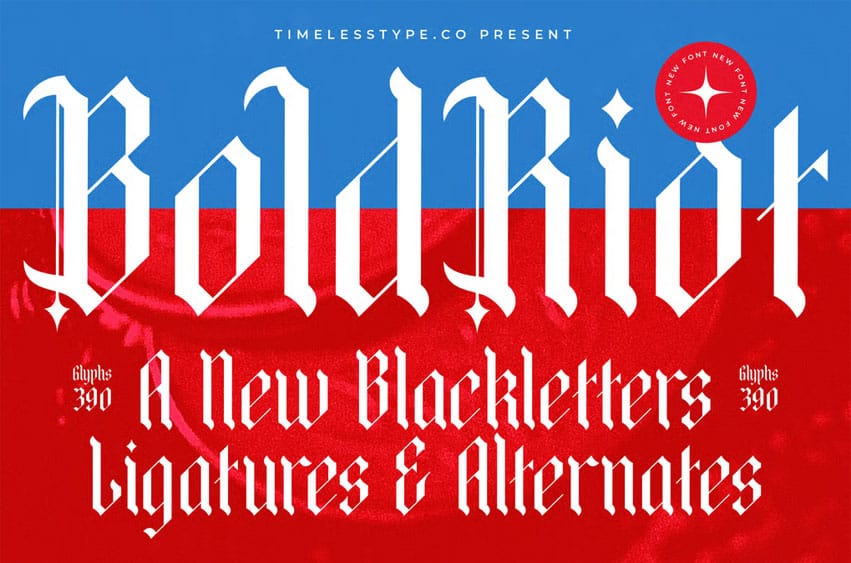
Bold Riot Font is a striking modern blackletter typeface built with sharp gothic angles, rigid vertical structure, and bold rhythmic strokes that command visual authority in any layout.
Designed for fearless branding, album covers, streetwear graphics, posters, esports identities, and expressive editorial titles, BoldRiot blends historical blackletter DNA with contemporary shaping to create a powerful typographic presence. With 390 glyphs, custom ligatures, and alternates, this font gives designers the flexibility to craft intense, dramatic, and high-impact visuals that stand out instantly.